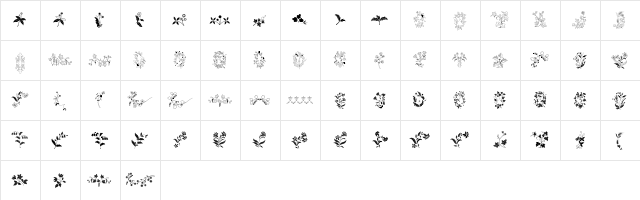
Azalleia Ornaments Free Regular
Design Context for Azalleia Ornaments Free Typeface
Azalleia Ornaments Free is built around its visual character rather than neutral utility — its distinctive forms are designed to make an impression at display sizes.
Font Pairing: Pair with a clean neutral sans-serif for body copy to let Azalleia Ornaments Free's character lead without overwhelming the composition.
Pro Tip: Use Azalleia Ornaments Free exclusively at display sizes — it was designed to be seen, not read at length. Let a neutral companion handle body copy.